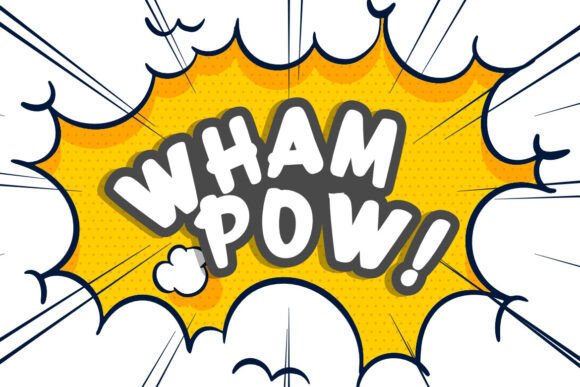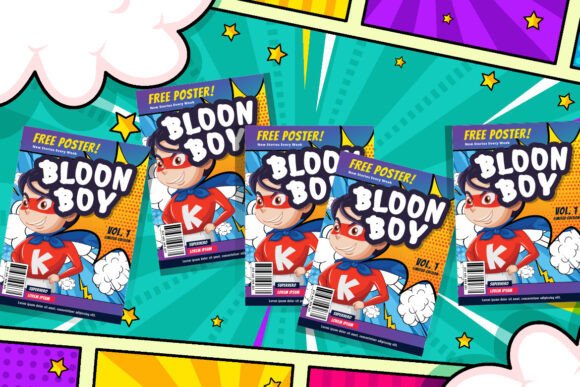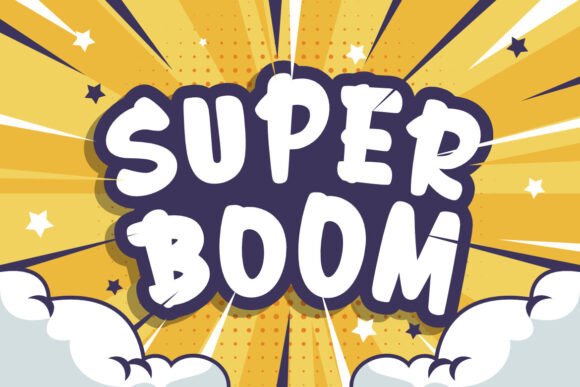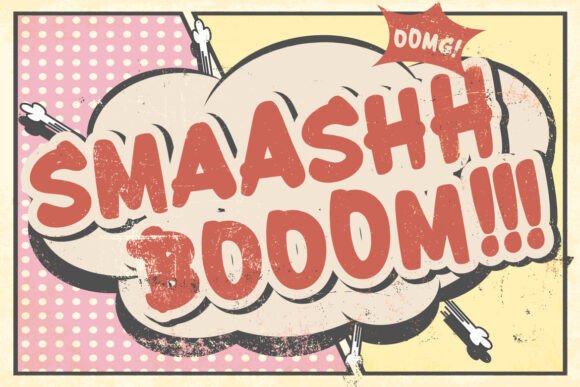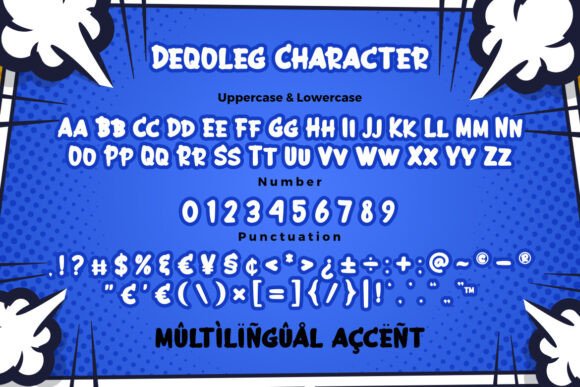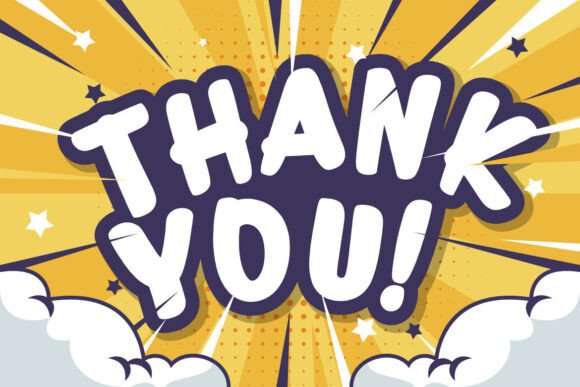
Introducing DEQOLEG: A Playful Cartoon Font for Creative Projects
Are you tired of using the same old fonts for your creative projects? Look no further! DEQOLEG, a playful cartoon font, is here to add a touch of fun and whimsy to your designs. Made with a high premium quality level, this font is perfect for a wide range of applications, from flyers and quotes to posters, banners, packaging, merchandise, logotypes, and more.
What Makes DEQOLEG Special?
DEQOLEG is not just another font; it’s a design element that can elevate your creative projects to the next level. Here are some features that make it special:
- Playful and Cartoonish: DEQOLEG has a unique, playful, and cartoonish style that can add a touch of fun to your designs.
- High-Quality: This font is made with a high premium quality level, ensuring that it looks great in any design.
- Versatile: DEQOLEG can be used for a wide range of applications, from print materials to digital designs.
- Easy to Read: Despite its playful style, DEQOLEG is easy to read, making it perfect for use in quotes, posters, and other designs where text needs to be clear.
Uses of DEQOLEG Font
The versatility of DEQOLEG font makes it suitable for various creative projects. Here are some ideas to get you started:
- Flyers and Brochures: Add a playful touch to your marketing materials with DEQOLEG.
- Quotes and Posters: Use DEQOLEG to create eye-catching quotes and posters that stand out.
- Banners: Whether it’s for a website, social media, or a physical event, DEQOLEG can make your banners more engaging.
- Packaging: Add a personal touch to your product packaging with this unique font.
- Merchandise: DEQOLEG is perfect for designing t-shirts, mugs, and other merchandise.
- Logotypes: Create a memorable logo for your brand with DEQOLEG.
Why Choose DEQOLEG?
In a world where design plays a crucial role in communication, choosing the right font can make all the difference. Here are reasons why you should consider DEQOLEG for your next project:
- Unique Style: DEQOLEG offers a unique style that can set your designs apart from the rest.
- Quality: With its high premium quality, DEQOLEG ensures that your designs look professional and appealing.
- Flexibility: This font can be used in various contexts, making it a versatile addition to your design toolkit.